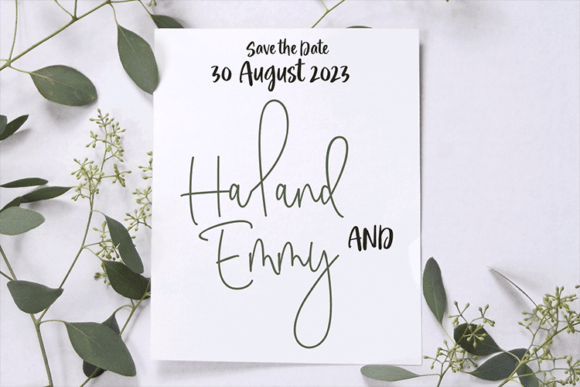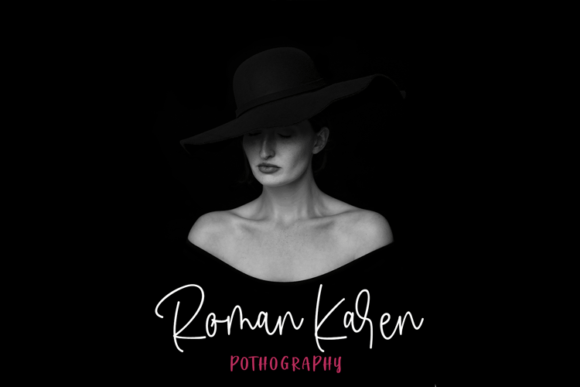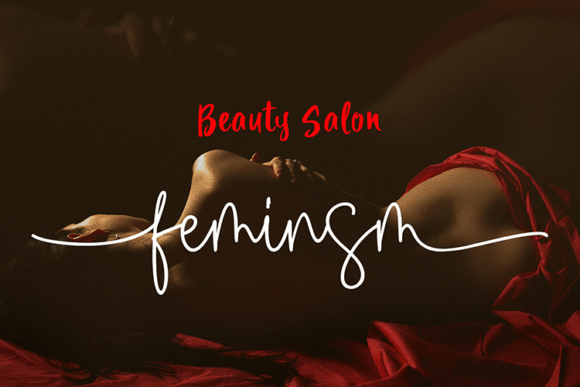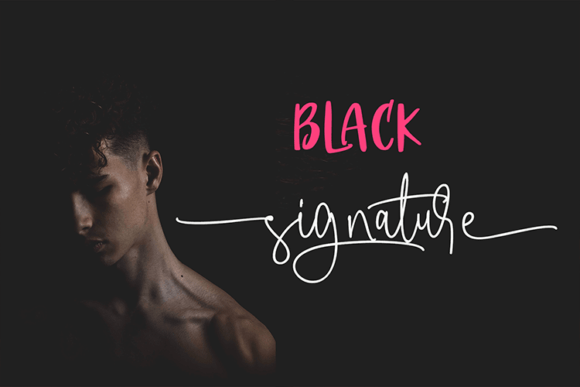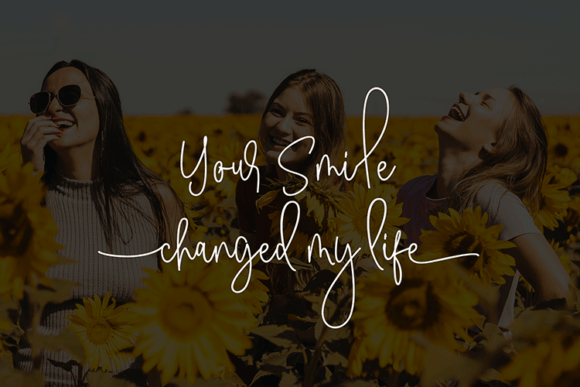
Have you ever stared at a blank canvas, a blank page, or a blank screen, waiting for inspiration to strike? That’s exactly where I was when I discovered the Augustine Font. It’s a game-changer, and I’m excited to share its magic with you.
The Augustine Font is a beautifully crafted script font that elevates any design project. Its intricate details and elegant lines make it a perfect addition to your font library. Whether you’re working on a wedding invitation, a logo, or a book cover, this font has the potential to take your creation to the next level.
With the Augustine Font, you’ll have access to a wide range of glyphs and swashes, thanks to its PUA encoding. This means you can unleash your creativity without any limitations, making it a valuable asset for designers of all levels.
Augustine Font Key Features
• Font Family: Augustine Font is a modern script font, ideal for creating elegant and sophisticated designs.
• Unique Characteristics: Features a unique blend of elegance and sophistication, with a flowing script style that adds a touch of luxury to designs.
Augustine Font Review
I’ve had the chance to work with Augustine Font, and I’m here to share my honest review.
Augustine Font is a beautiful script font with a warm and elegant feel. It’s perfect for titles, headings, and other text elements where a touch of sophistication is needed. Here are some of its strengths:
• Legibility: The font is highly legible, even at smaller sizes.
• Expressiveness: The font conveys a sense of emotion and personality, making it great for creative projects.
• Scalability: Augustine Font looks great in a variety of sizes and resolutions.
While Augustine Font is a great choice for many projects, it’s not perfect. Here are some limitations to consider:
• Lack of versatility: The font is best suited for titles and headings, and may not be the best choice for body text.
• Limited character set: The font may not include all the characters you need for certain languages or special symbols.
Overall, I think Augustine Font is a great choice for designers looking to add a touch of elegance and sophistication to their projects. While it may have some limitations, its strengths make it a valuable addition to any design toolkit.
Use the Augustine font for:
Headings and titles to add a touch of elegance and sophistication.
Body text to create a clean and modern look.
Combine with other fonts to create a unique and eye-catching design.
Experiment with different font sizes and colors to create visual hierarchy and emphasis.
Alternatives to Augustine Font for Designers
Playfair Display is a luxurious, high-end serif font ideal for headings and titles. Its elegant and refined design makes it perfect for use in high-end branding, luxury products, and formal invitations. Compared to Augustine Font, Playfair Display has a more classic and sophisticated feel, with intricate details and flourishes that set it apart.
Great Vibes is a beautiful, elegant script font that exudes a sense of sophistication and refinement. It’s perfect for use in invitations, branding, and other design elements where a touch of elegance is needed. Compared to Augustine Font, Great Vibes has a more fluid and cursive feel, making it ideal for use in wedding invitations, menus, and other high-end designs.
Carolyna Pro is a modern, elegant sans-serif font that’s perfect for use in headings, titles, and branding. Its clean and sophisticated design makes it ideal for use in high-end designs, such as luxury products, fashion brands, and formal invitations. Compared to Augustine Font, Carolyna Pro has a more modern and sleek feel, with a focus on clean lines and minimal ornamentation.
Alex Brush is a beautiful, elegant script font that’s perfect for use in invitations, branding, and other design elements where a touch of sophistication is needed. Its fluid and cursive design makes it ideal for use in wedding invitations, menus, and other high-end designs. Compared to Augustine Font, Alex Brush has a more whimsical and artistic feel, making it perfect for use in creative and expressive designs.